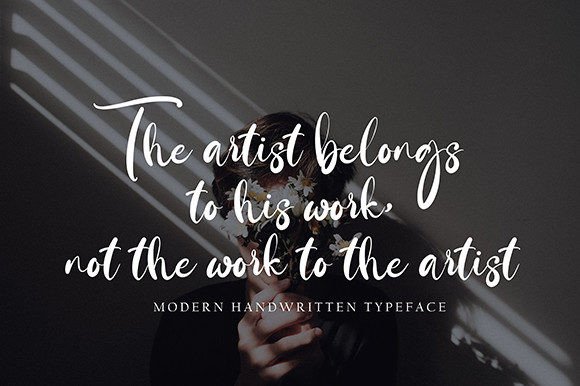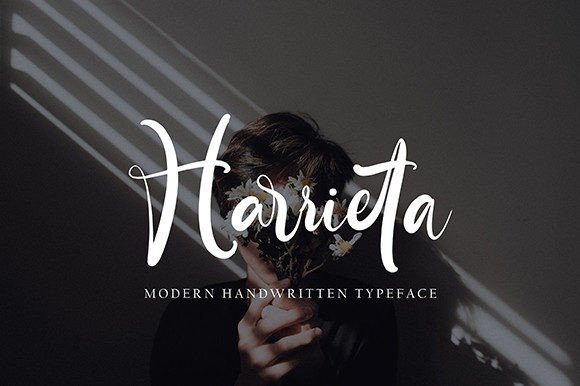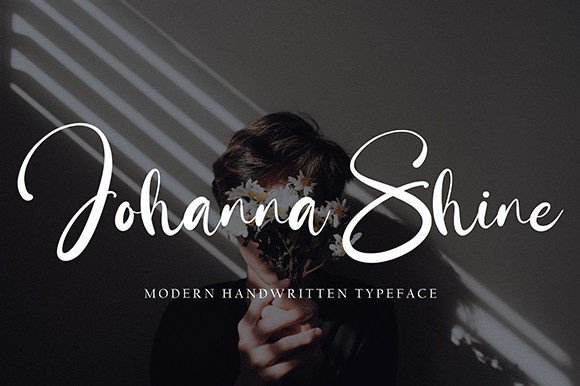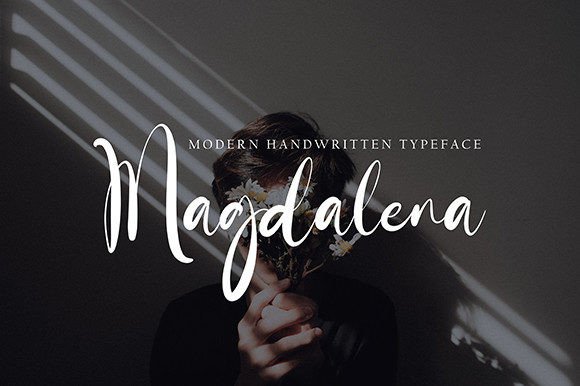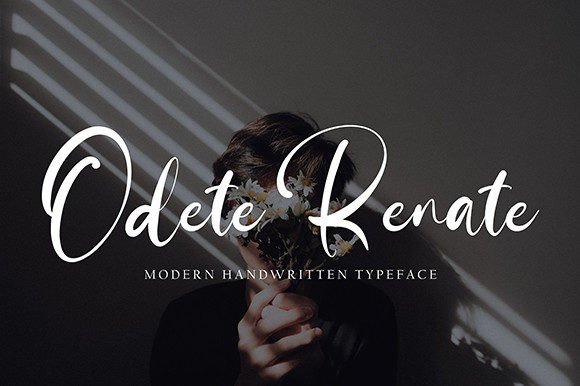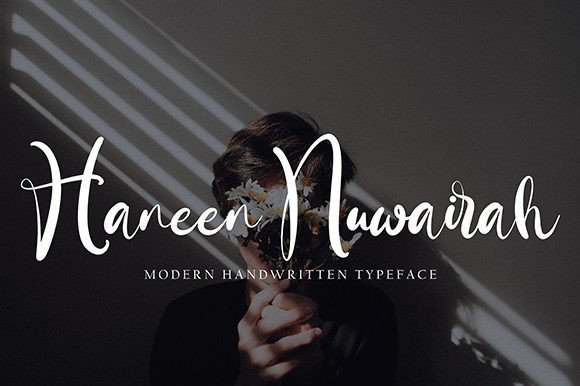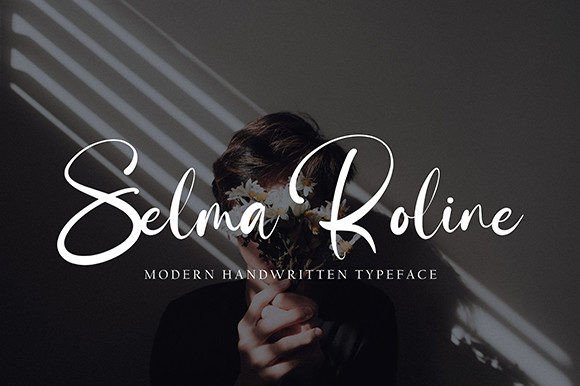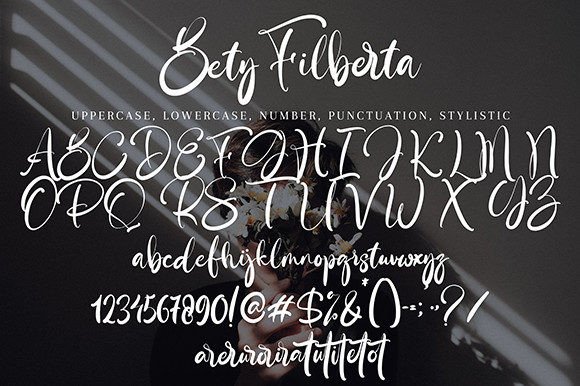
Bety Filberta Font
About Bety Filberta Font
Introducing Bety Filberta, a modern handwritten script font that brings a natural, stylish, and personalized feel to your creative projects. This versatile typeface is perfect for a wide range of extraordinary endeavors, including wedding invitations, thank-you cards, quotes, greeting cards, logos, business cards, and any other design that benefits from a customized touch.
Bety Filberta’s modern handwritten script style adds a genuine and contemporary touch to your text. Its versatile nature allows it to adapt seamlessly to different design applications, making it a lovely choice for a variety of projects.
For wedding invitations, Bety Filberta imparts a romantic and trendy vibe, enhancing the elegance of your invitations with a touch of personalization. The font’s suitability extends to thank-you cards, where it adds a stylish and expressive feel to your messages of gratitude.
In quotes, greeting cards, logos, and business cards, Bety Filberta’s adaptable style shines through, contributing to a distinctive and memorable visual identity. Its customized touch elevates your designs, creating a lasting impact with its modern and handwritten charm.
Bety Filberta isn’t just a font; it’s a creative tool that enhances your projects with its natural and stylish script. Download Bety Filberta now to infuse a personalized and contemporary feel into your designs. With its versatility and modern charm, this font becomes the perfect choice for projects that require a handwritten touch and a touch of sophistication.